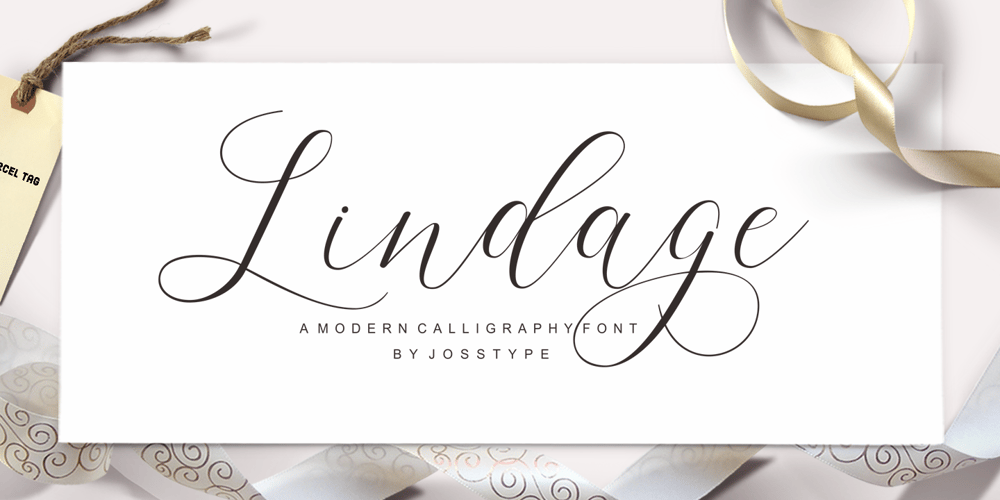
Lindage Script
Lindage Script font
Lindage Script Font Family was designed by Teuku Zulfikar and published by Josstype. Lindage Script contains 1 styles and family package options. Lindage Script is a handwritten typeface with classic roots, a beautiful formal script with an elegant touch. It works perfectly in the world of weddings, logos, greeting cards, branding, print ads, quotes, signage, magazines etc. Lindage Scrip features 346+ glyphs and 116 alternate characters, including initial and terminal letters, alternates, swashes, ligatures and multiple language support. To enable the OpenType Stylistic alternates, you need a program that supports OpenType features such as Adobe Illustrator CS, Adobe Indesign & CorelDraw X6-X7, Microsoft Word 2010 or later versions. There are additional ways to access alternates/swashes, using Character Map (Windows), Nexus Font (Windows), Font Book (Mac) or a software program such as PopChar (for Windows and Mac). How to access all alternative characters: http://youtu.be/iptSFA7feQ0nn http://cuttingforbusiness.com/2016/01/28/how-to-use-opentype-fonts-in-silhouette-studio-or-cricut- design-space/ https://www.youtube.com/watch?v=Go9vacoYmBw Thank you for your purchase! And please let me know if you have any questions via email: joelpopon@gmail.com